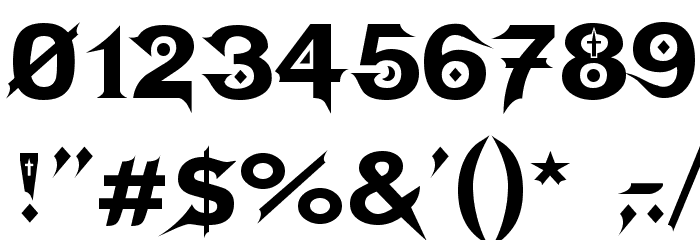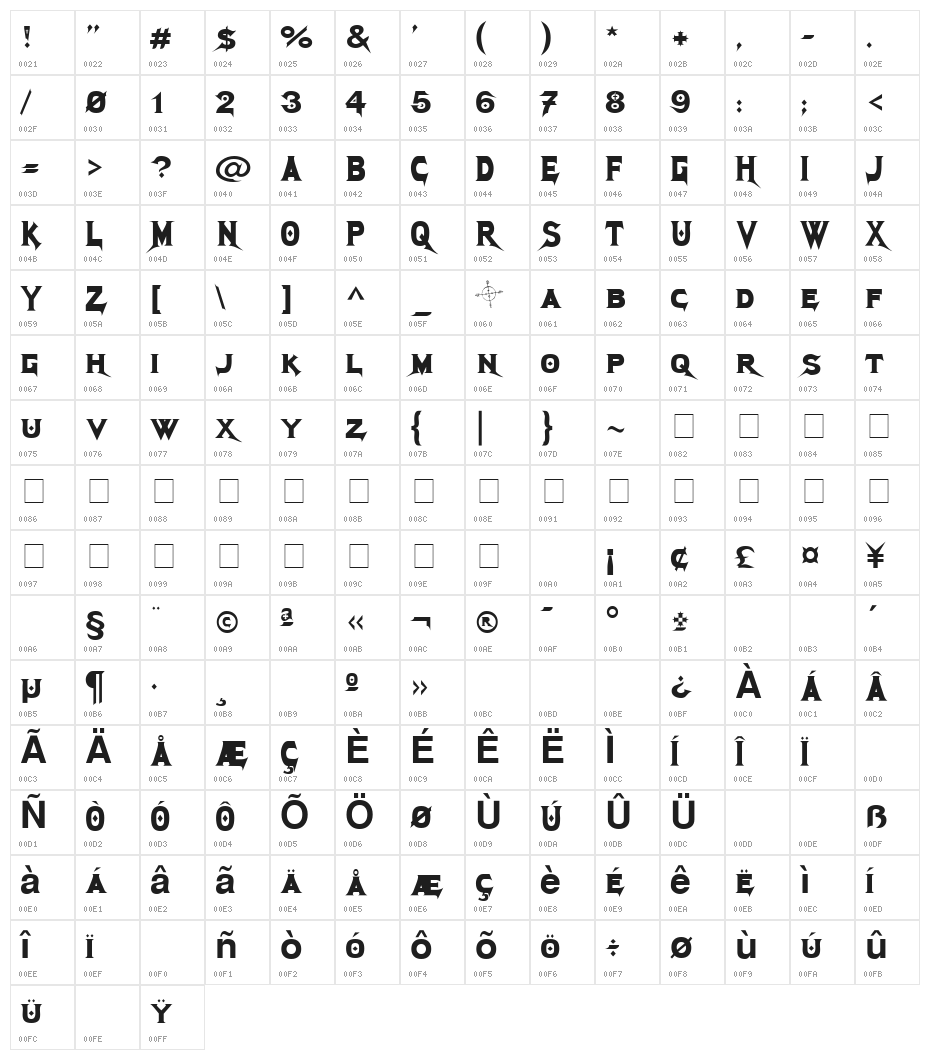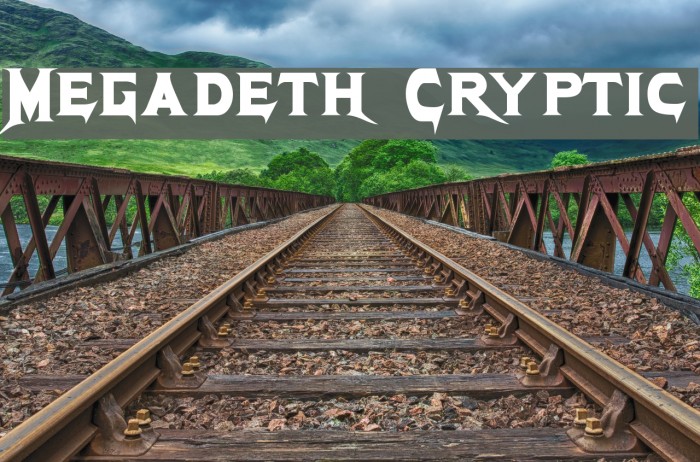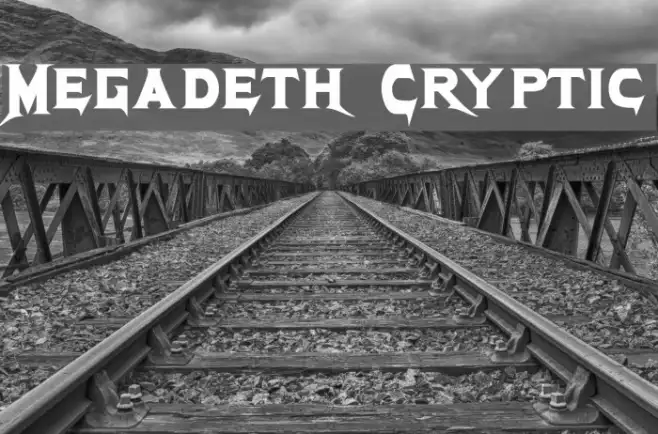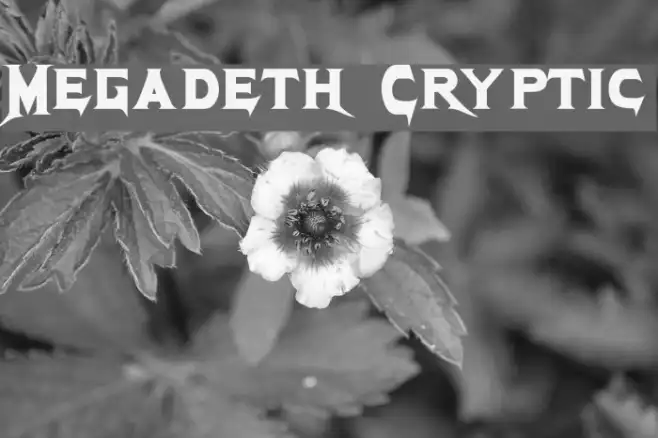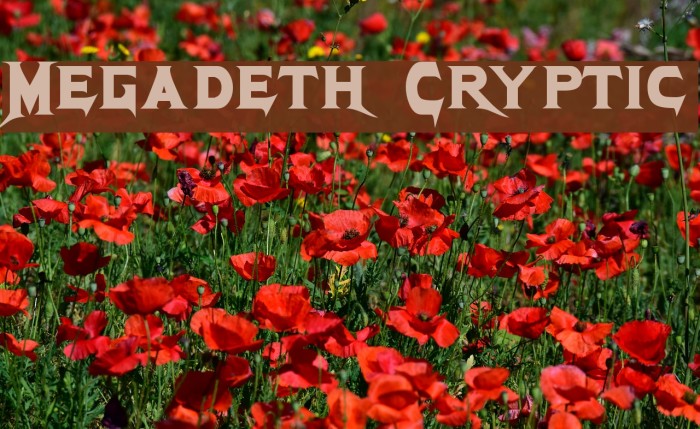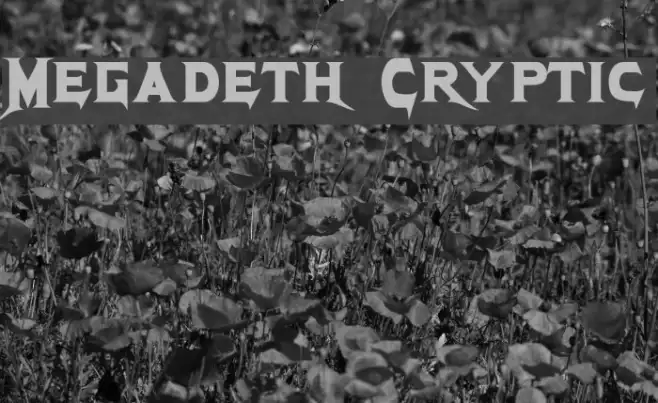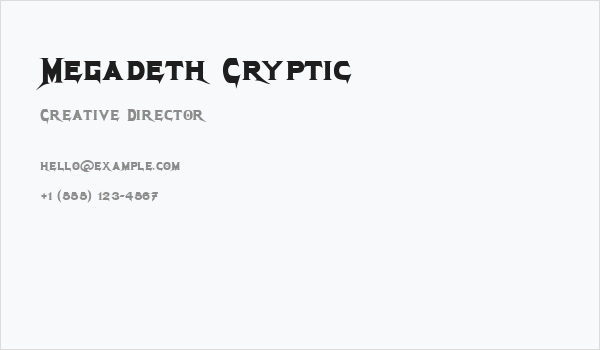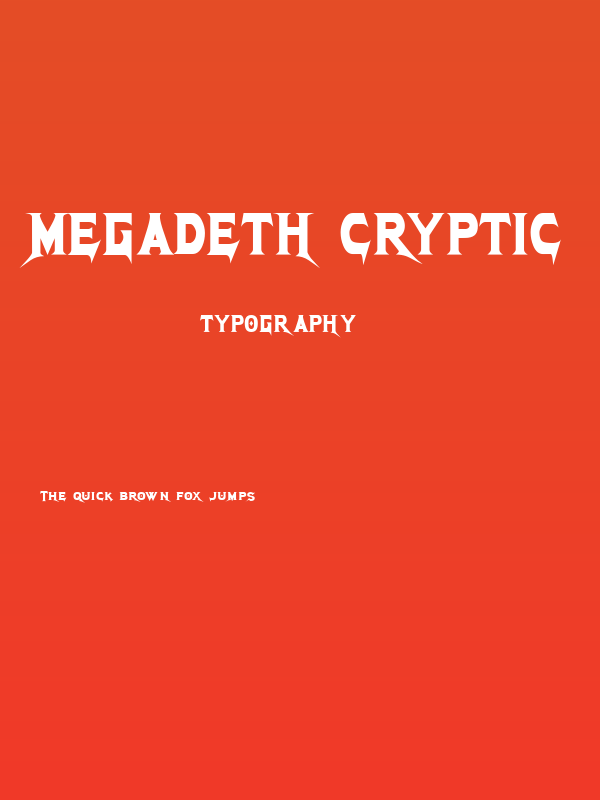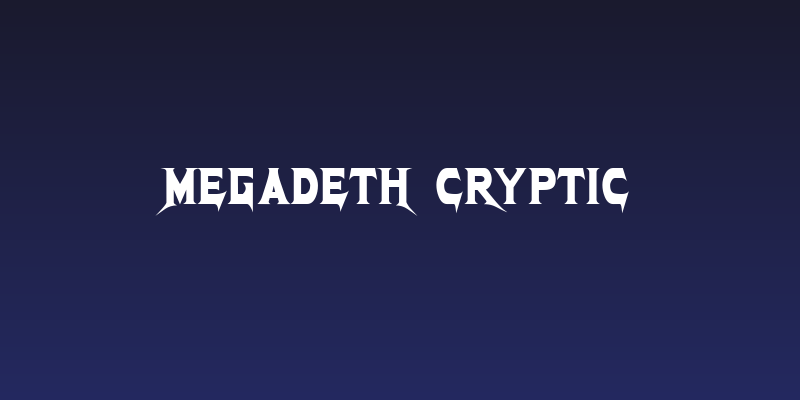
Megadeth Cryptic Font
Megadeth Cryptic Description
This font features a bold and aggressive design, characterized by sharp, angular edges and a heavy weight. The letters have a distinct, edgy appearance with pointed serifs and unique cutouts that give it a dynamic and intense look. The numbers and special characters follow the same bold and striking style, making it ideal for projects that require a strong visual impact. The overall design is reminiscent of heavy metal aesthetics, making it suitable for music-related themes or any project that aims to convey power and intensity.
| Proposed Projects | Album covers, band logos, posters, merchandise, and any project needing a bold, intense aesthetic. |